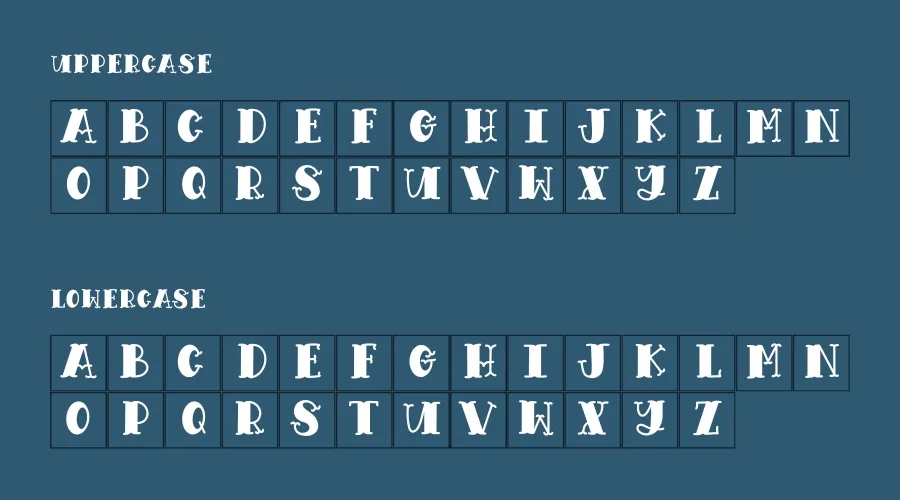
Apple Wine Font
About Apple Wine Font
Apple Wine Font is designed by CraftyLittleNodes it belongs to the fancy font category. The characters of this font are perfect for HD graphics and video design. It can also be combined with other fonts to improve your designs’ readability.
For creating unique designs, it pairs well with winob font. This font enhances the creativity of your text and design. This font style fits perfectly in CSS, Canva, and Adobe Photoshop to create amazing designs.
In addition to creating posters, social media posts, and animated logos, you can also use this typeface. It can also be used in titles and headings on websites and other design pages.
You’ll be able to change over your simple and easy content into artwork. Utilize this typeface on Canva to effectively make professional designs. This font is very close to the super tiki font.
A few of the places where you’ll be able to utilize text style incorporate Websites, Blogs, Logos, postcards, promotions, brochures, and much more.
The styles and characters are unbelievable for any highlights and title. Other than that, you will be able to make Hotel/Shop names, Cities, reports, sales, long and brief sections, clear substance plans, and so on.
Pairing it with Caterpillar Font. Both fonts have a creative texture appearance and can give your designs a more creative appearance.
Does Apple Wine Font have great readability?
The Apple Wine Typeface has amazing clarity in its fascinating style. The characters are well-defined and simple to read.